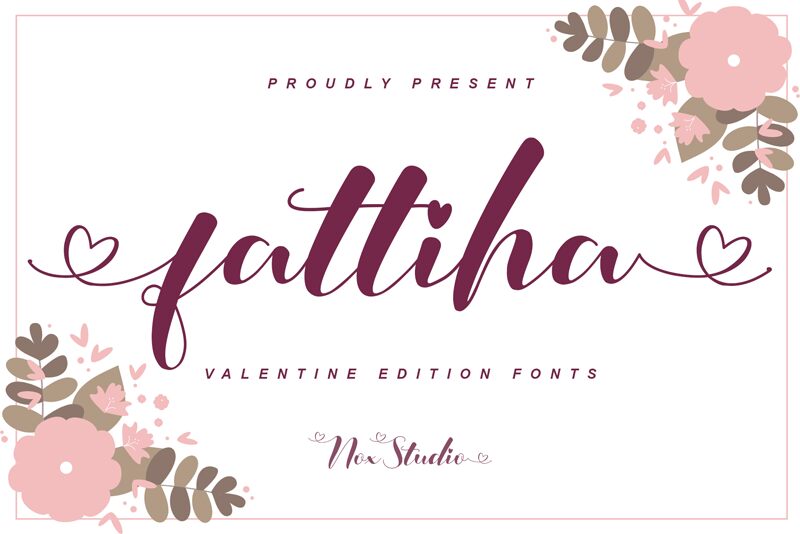
Fattiha, a bold and romantic calligraphy font designed by Nox Studio's Sarif Hidayat, is perfect for any Valentine's Day project. It is also suitable for other projects that need a unique and stylistic font such as wedding invitations, greeting cards, logos, and much more.
Presentazione e campione visivo del carattere Fattiha